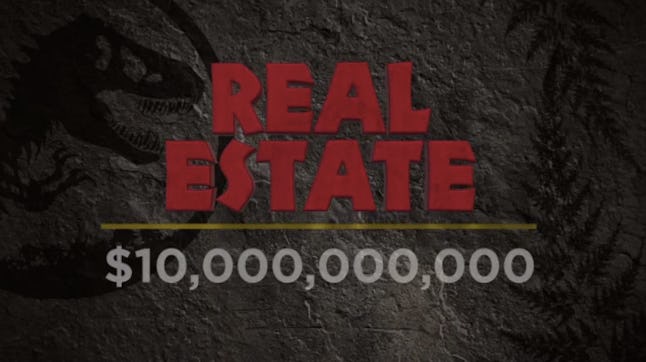
Jurassic Park Font Numbers
If you recognize the font from the samples posted here don't be shy and help a fellow designer Thousands of designers (famous or not) use the image font detection system to find a font or similar free fonts from an image Although we have the largest database of fonts, the search for a font from an image gets mixed results like the image above.
This font resembles the lettering used for the Jurassic Park movie. Download jurassic world font with regular style Download free fonts for Mac, Windows and Linux All fonts are in TrueType format Fontsupcom is a great collection of free fonts. Jurassic park (430) Free EPS, SVG Vector If you are in need of a stunning Jurassic park to download for free, then you’ve come to the right place!.
Jurassic Park A wealthy entrepreneur secretly creates a theme park featuring living dinosaurs drawn from prehistoric DNA Before opening day, he invites a team of experts and his two eager grandchildren to experience the park and help calm anxious investors. We have 17 free african fonts to offer for direct downloading · 1001 Fonts is your favorite site for free fonts since 01. Visit Fonts2u and download free fancy fonts for Windows or Macintosh Jurassic Parkttf Download @fontface Hawaii Lover TrueType Personal use HawaiiLoverttf Download @fontface Donate to author Sketchetik Light Ossi Gustafsson TrueType Personal use.
Jurassic Park font by Filmfonts FontSpace Download the free Jurassic Park font by Filmfonts It is a decorative font created in 04 and has been downloaded 290,664 times. Jurassic Park Font Features This can be a fancy, stylish, trend serif typeface that looks like a gucci font gets encouraged by means of a letters printable widespread journal logo For fans of dinosaurs and Jurassic Park, the latest Jurassic World movie is our chance this year to throw a party, be it for kids or for adults. The ‘Jurassic Park’ font — a lasting impression Each individual letter, number and punctuation mark had to be created as a separate file that contained digital information on size.